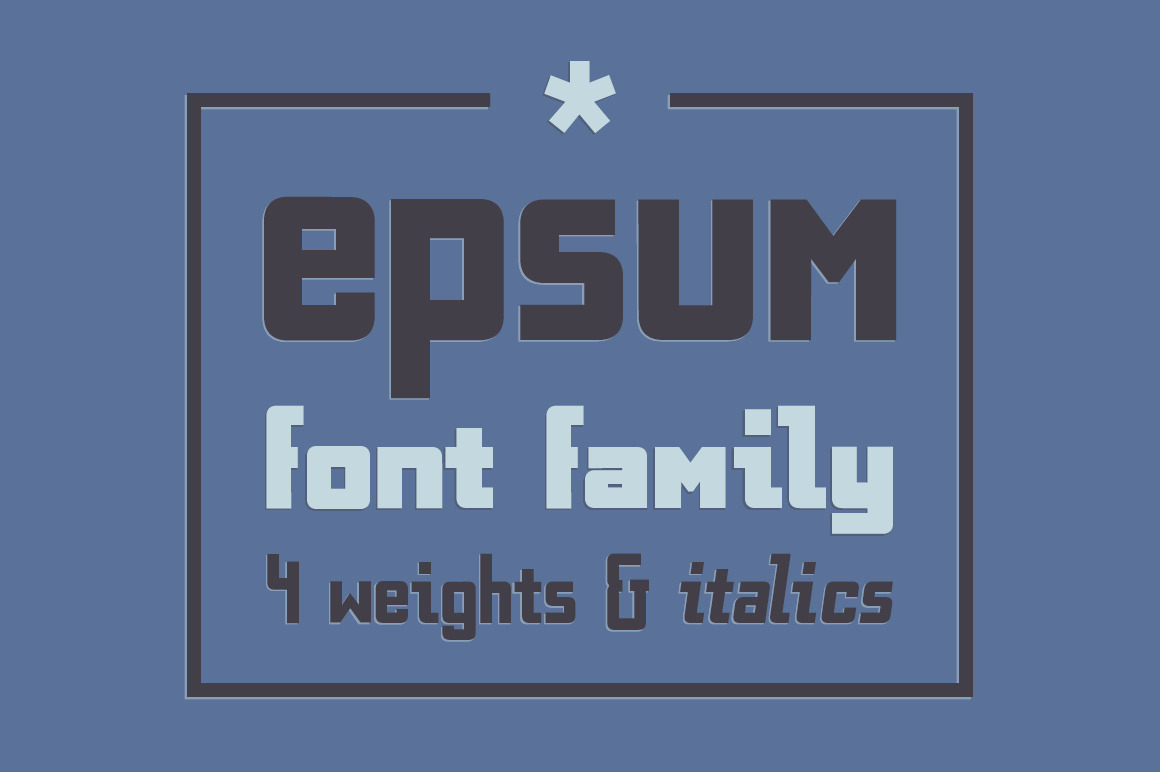
EPSUM Font Family
Epsum Font Family in 4 weights with italics.
Modern, strong typeface for confident design. Awesome in titles, on posters and branding.